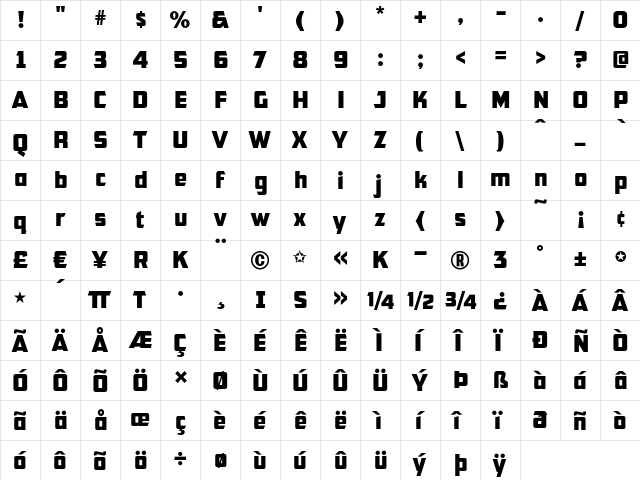
CFB1 American Patriot Regular
Design Context for CFB1 American Patriot Typeface
CFB1 American Patriot takes a measured approach to typography — its balanced proportions and neutral character make it a reliable workhorse for both digital and print work.